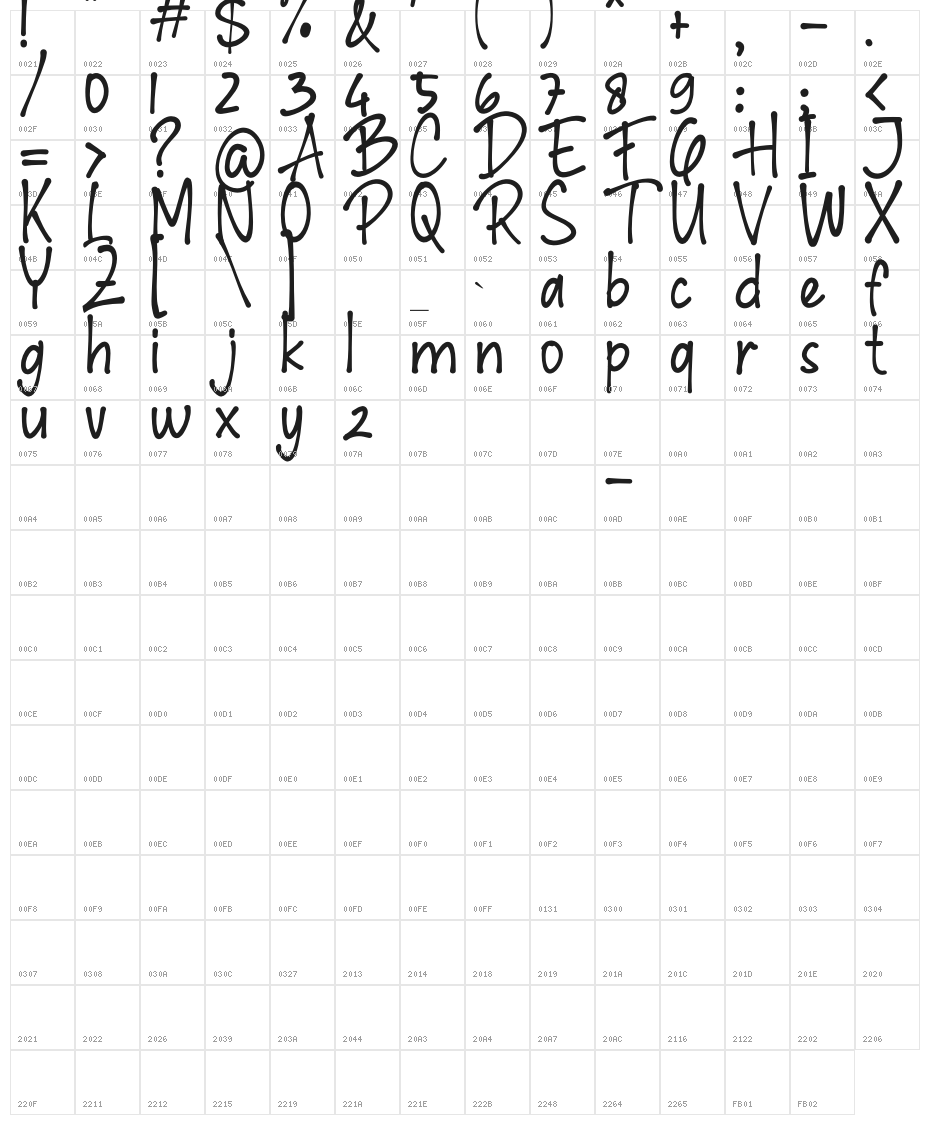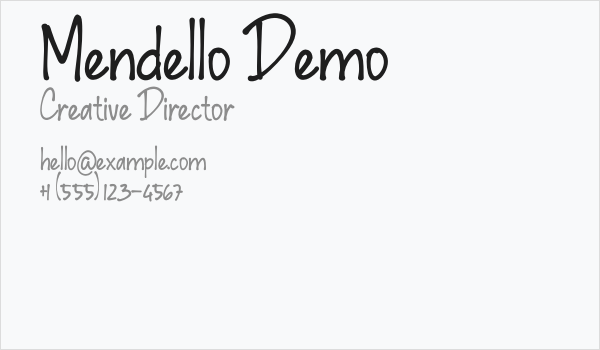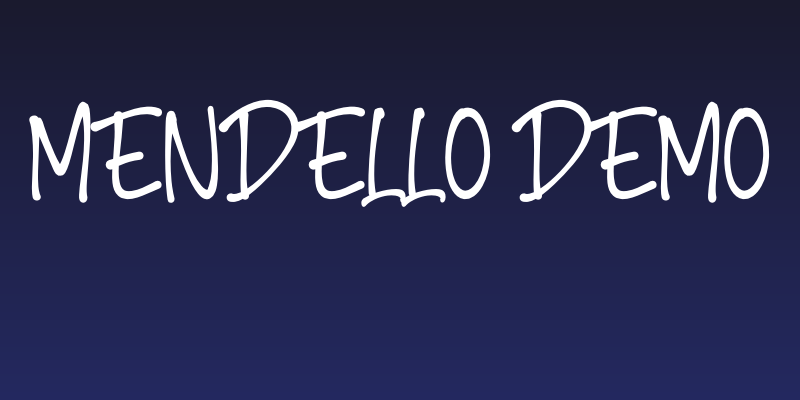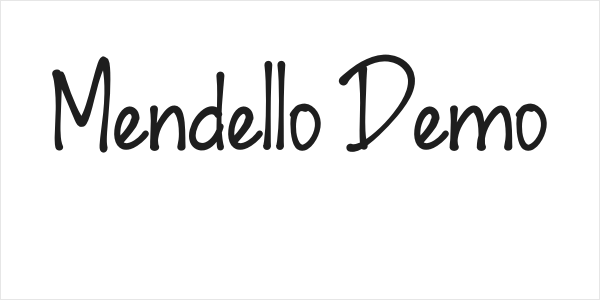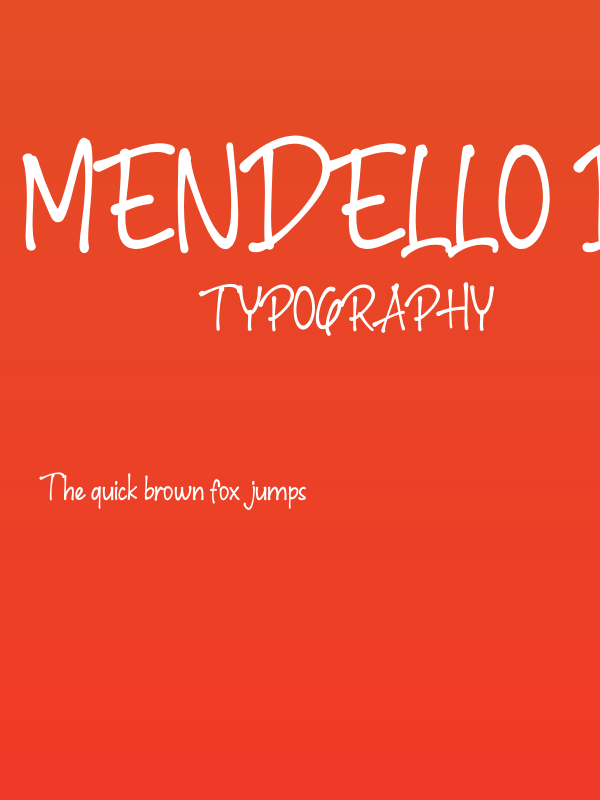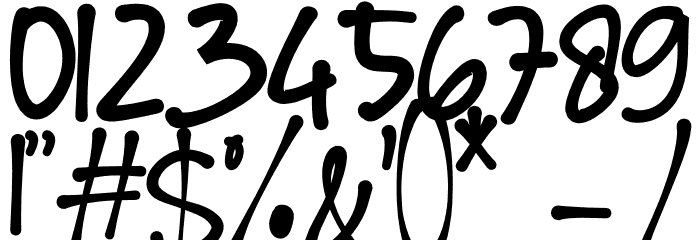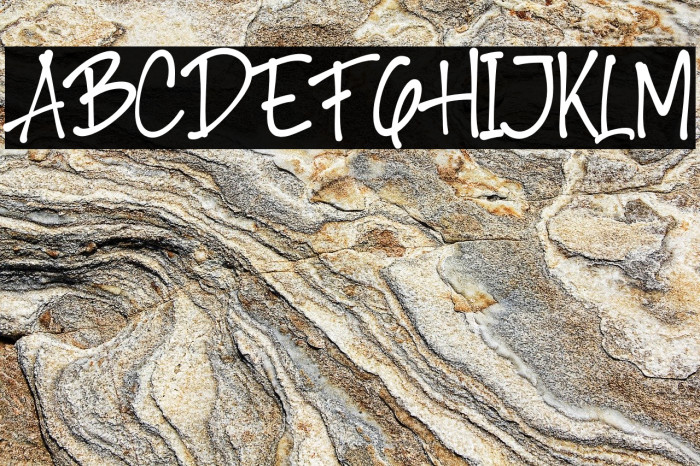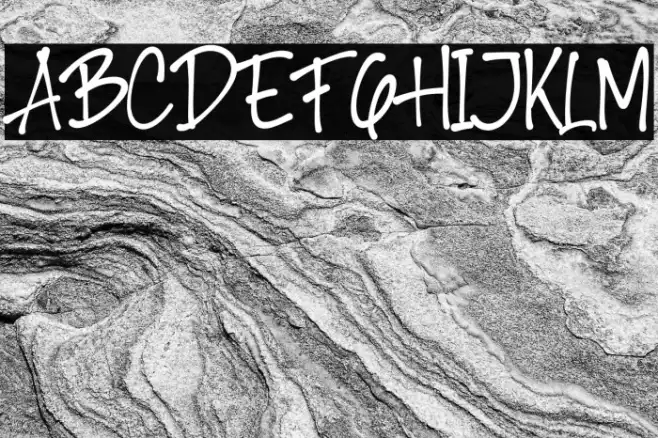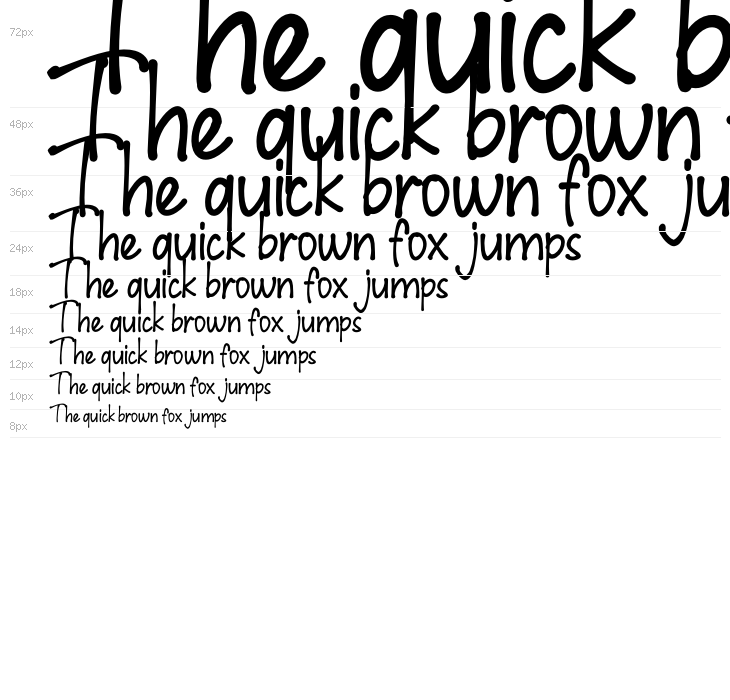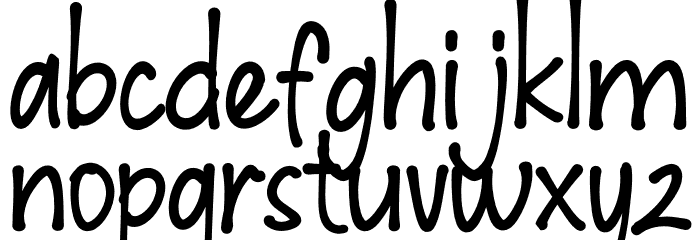
Mendello Demo Font
Mendello Demo Description
This font features a playful and casual handwritten style, characterized by its fluid and dynamic strokes. The uppercase letters are bold and slightly irregular, giving a sense of spontaneity and energy. The lowercase letters maintain a consistent flow, with rounded edges and a slightly slanted orientation, enhancing the informal appearance. Numbers and special characters are crafted with the same lively spirit, ensuring a cohesive look across all elements. The overall design is approachable and friendly, making it suitable for projects that require a personal touch.
| Use Case | Logos, Headlines, Informal communications |
| Proposed Projects | Ideal for greeting cards, invitations, personal branding, and creative projects that aim to convey warmth and approachability. |